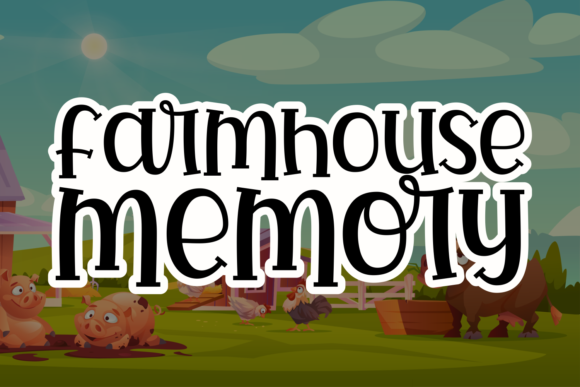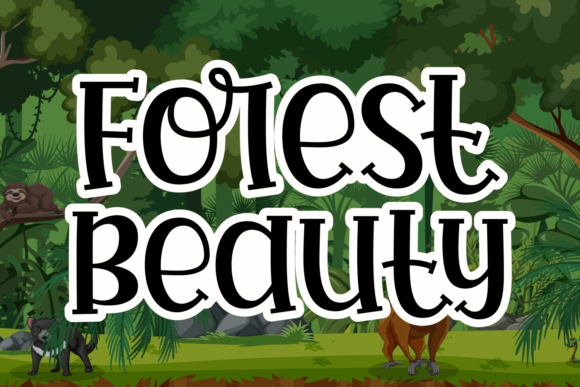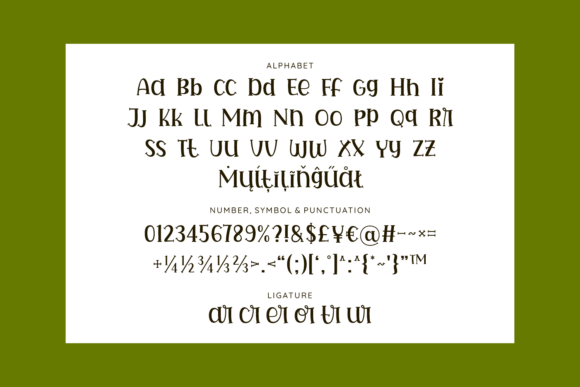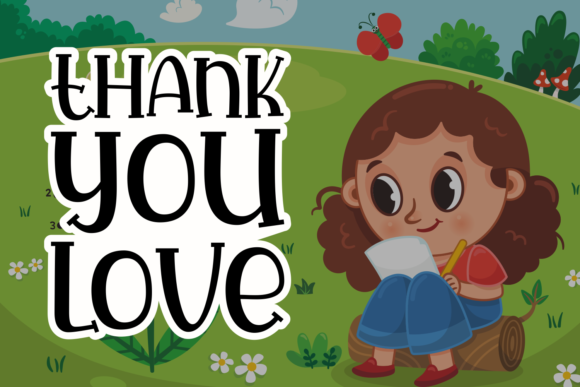
Introduction to Family is Everything Font
“Family is Everything” is a serif font that will surprise you with its quirky characters.
Varied and balanced, this font is perfect for any creative project, from magical storybooks to logos and business cards .